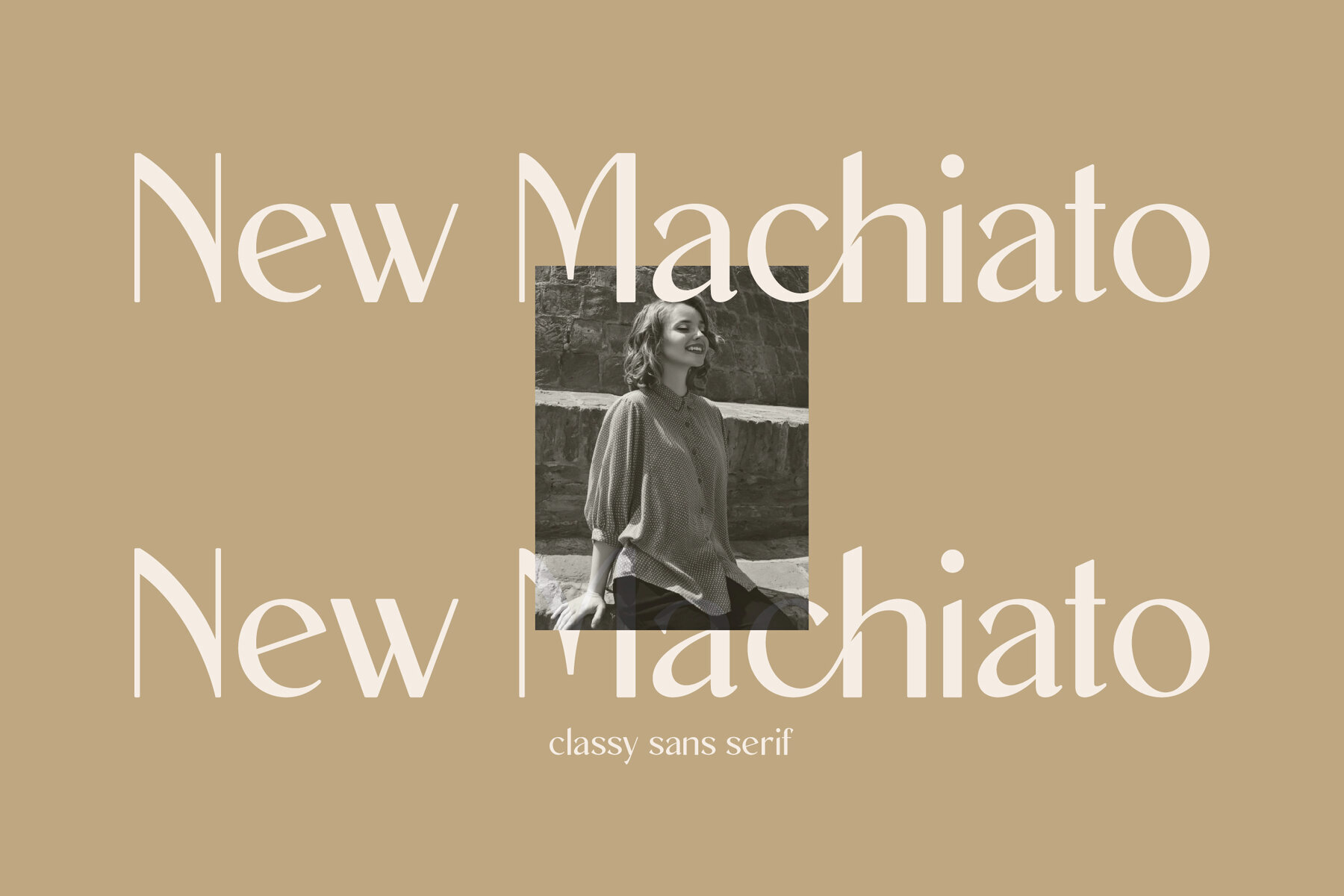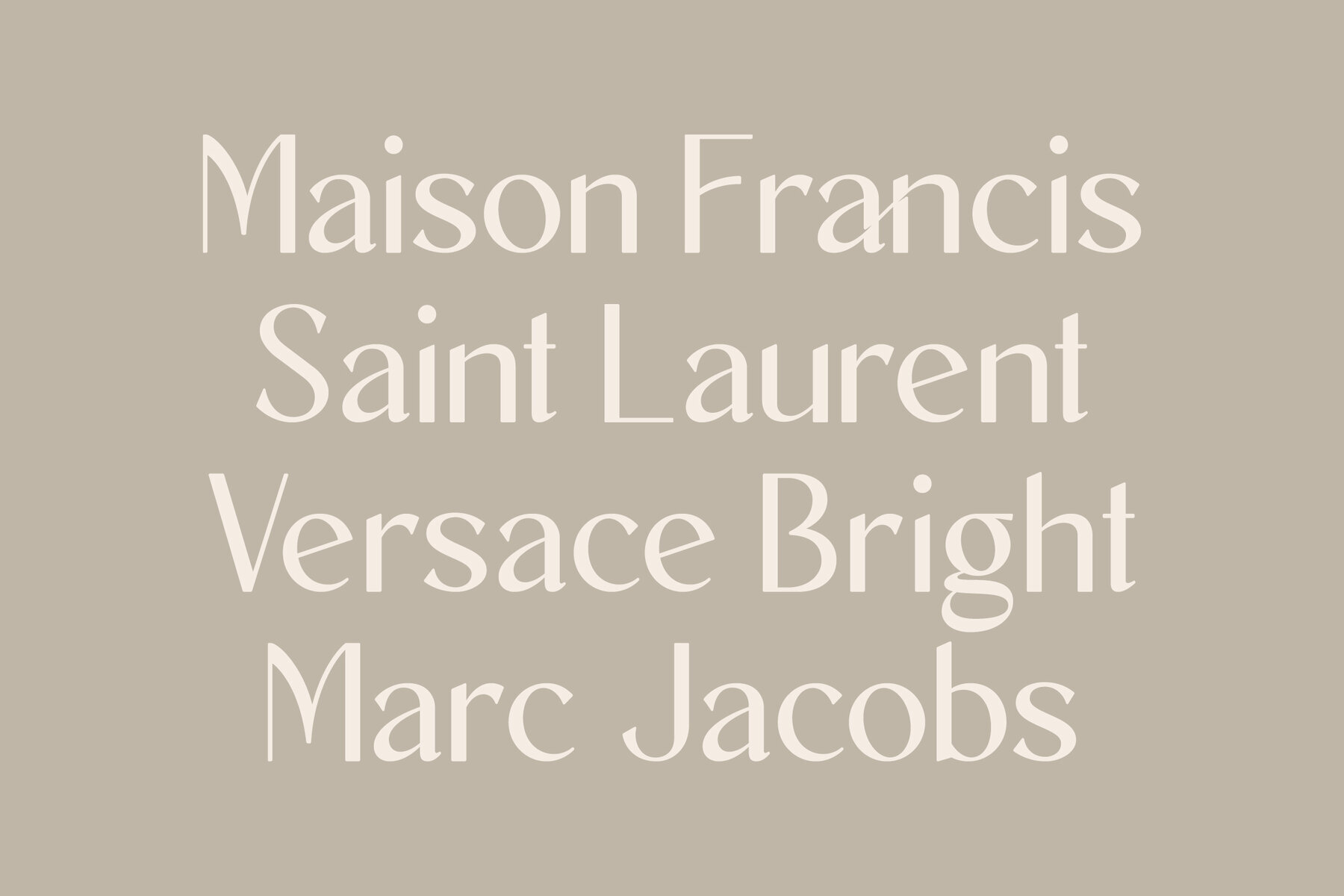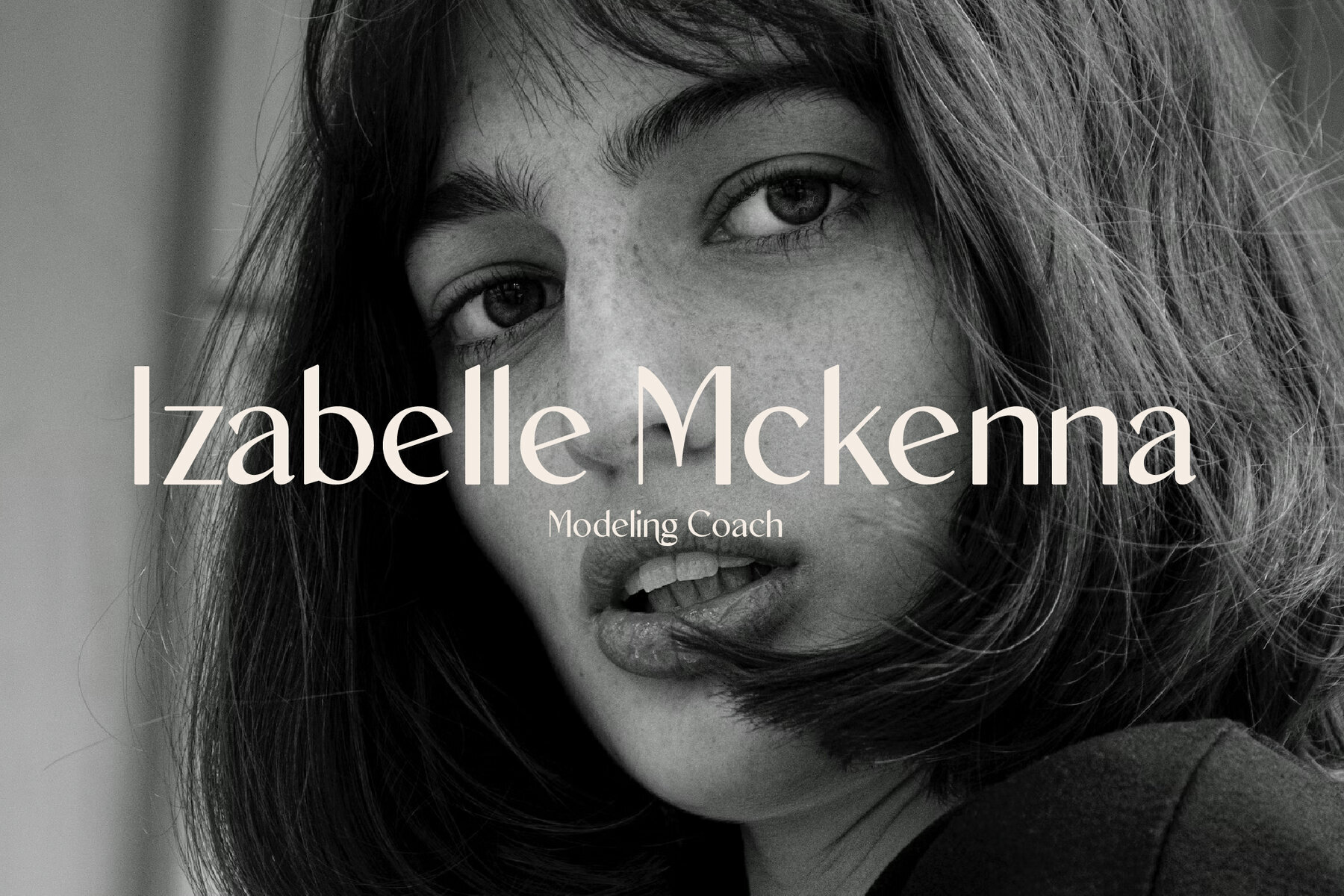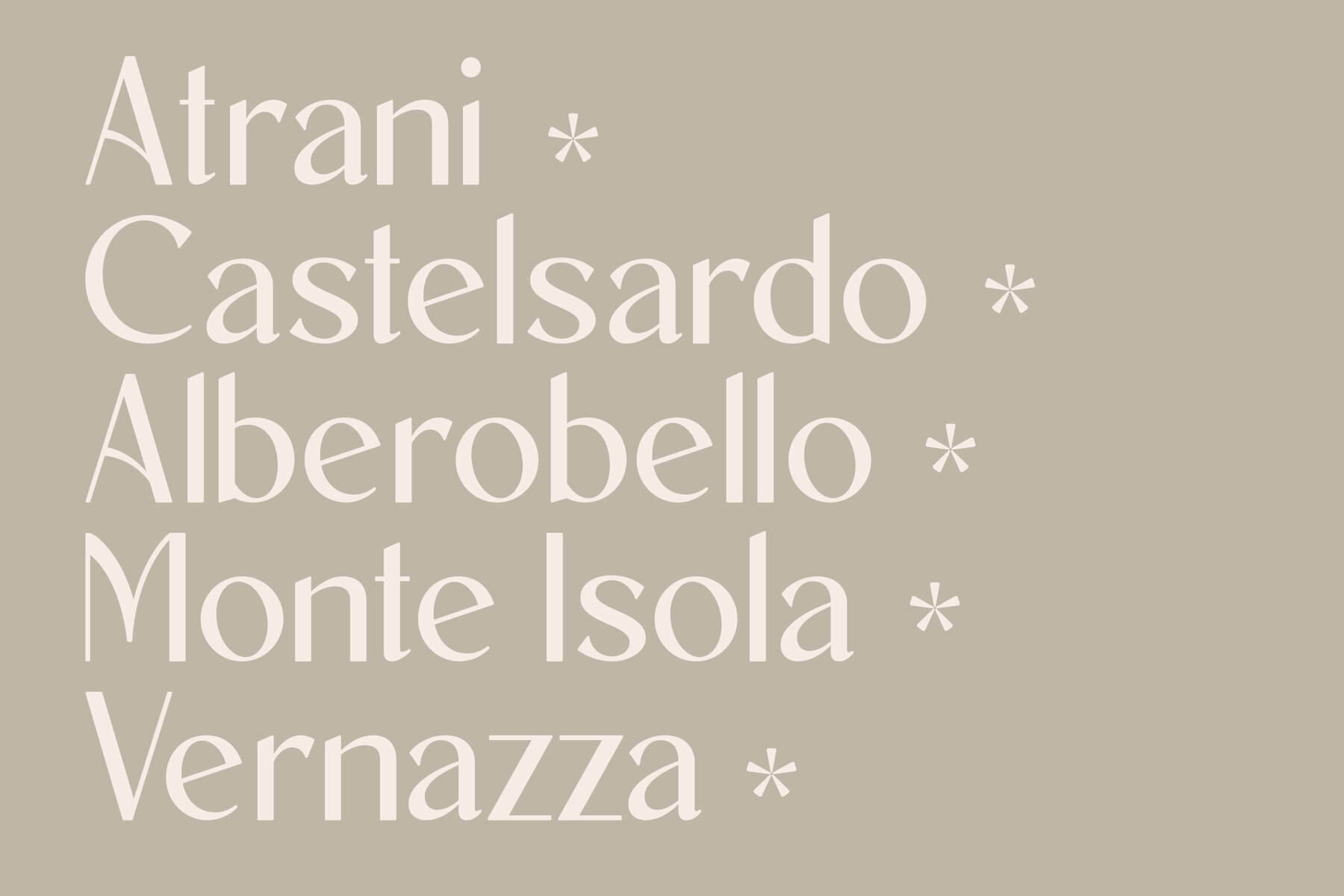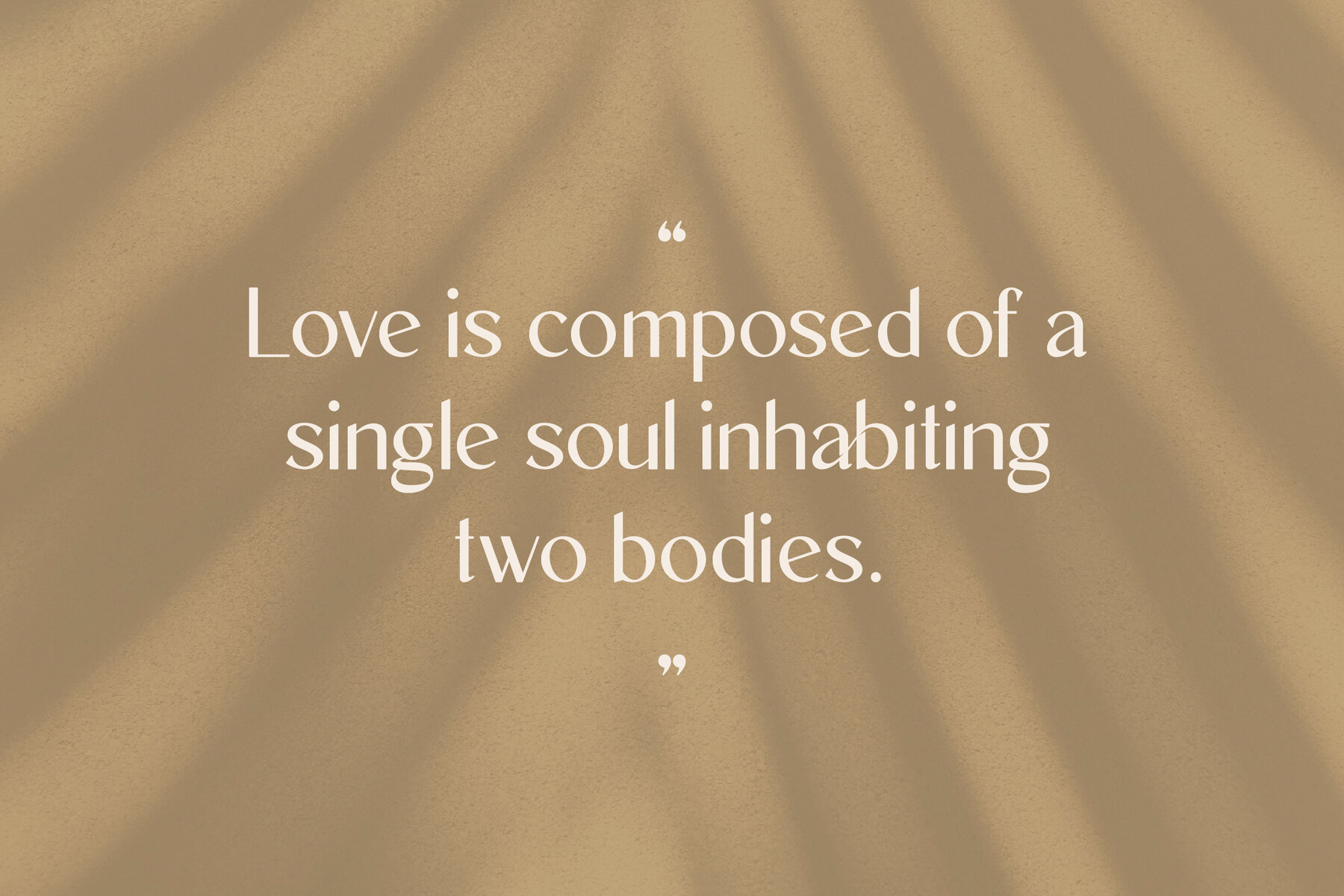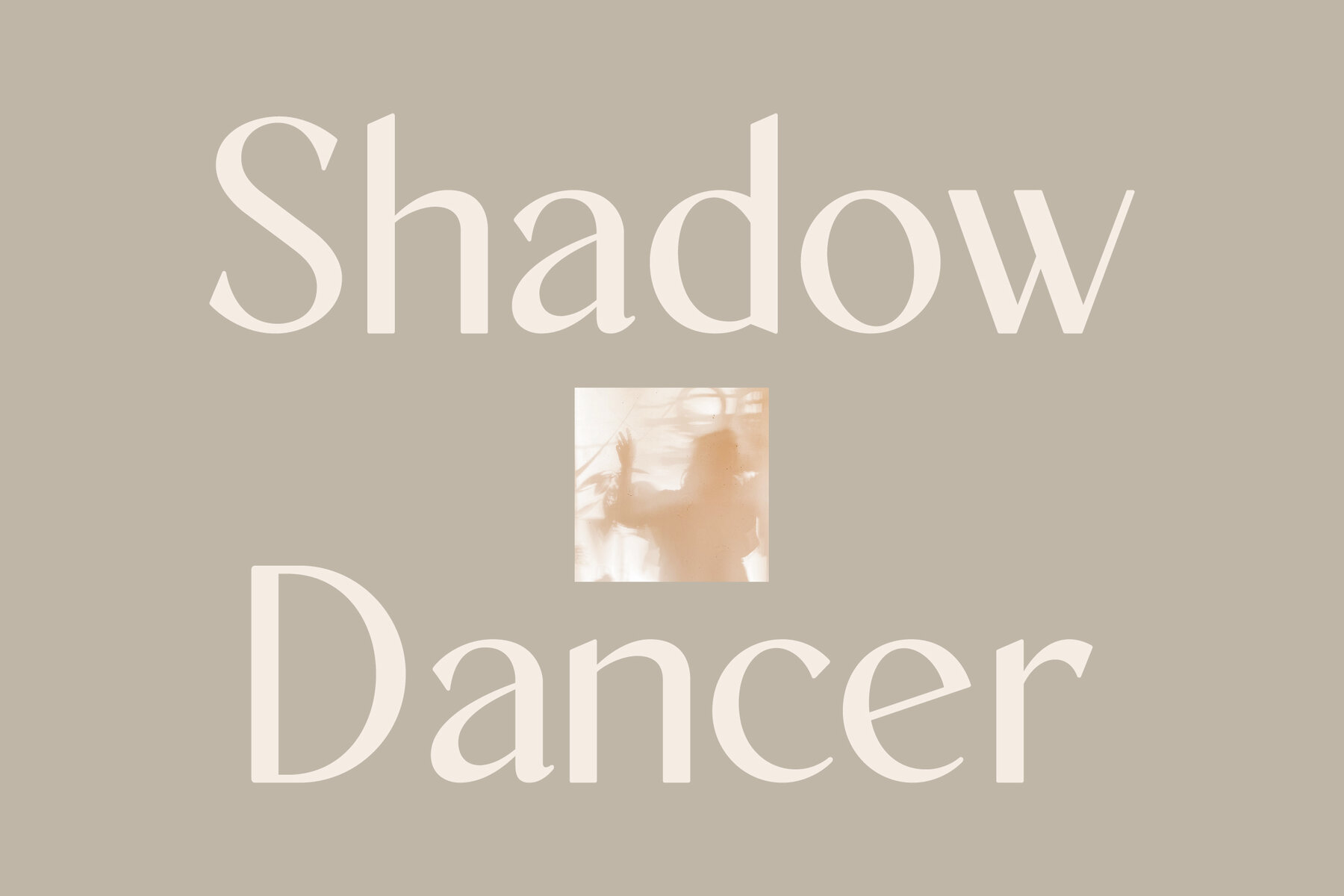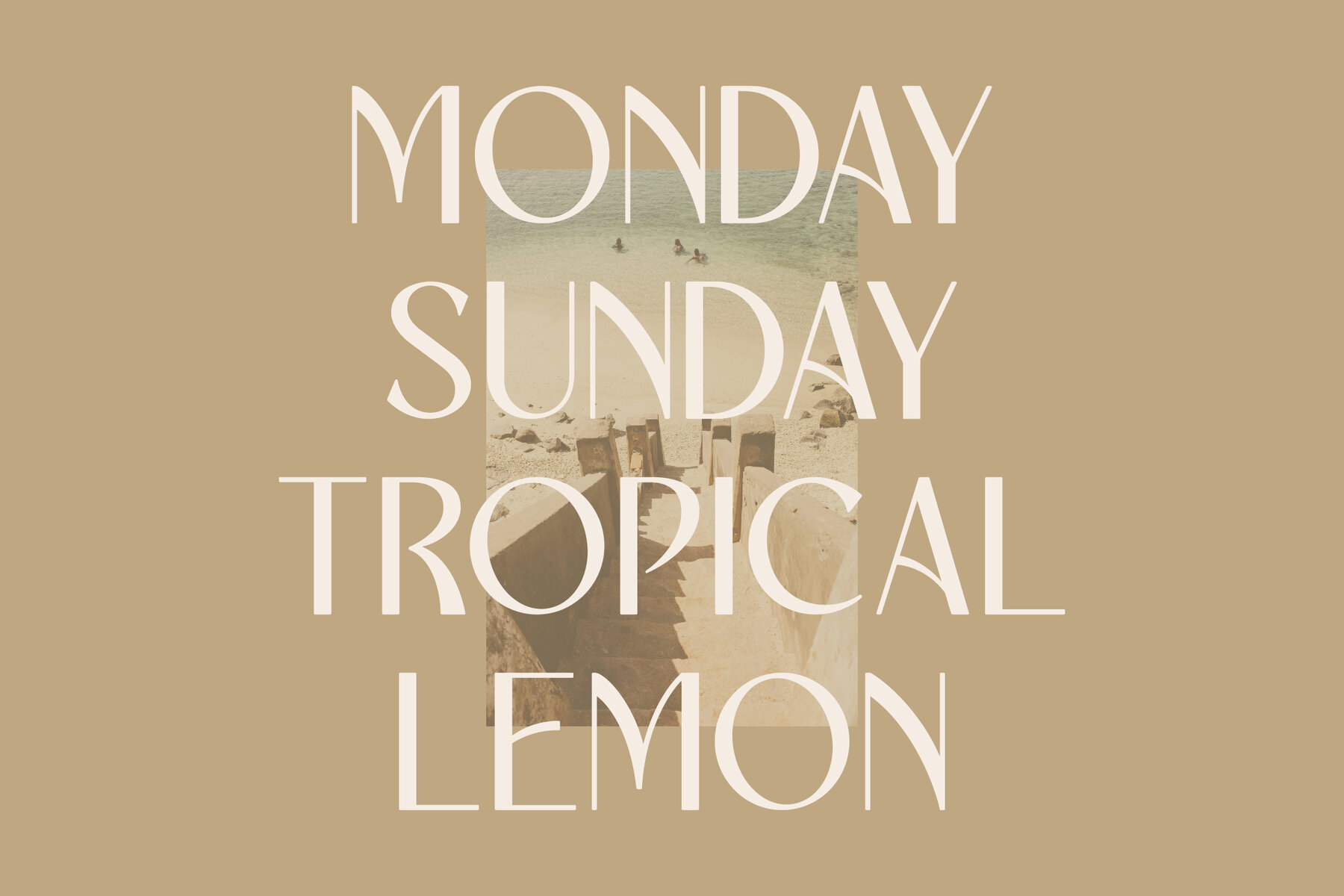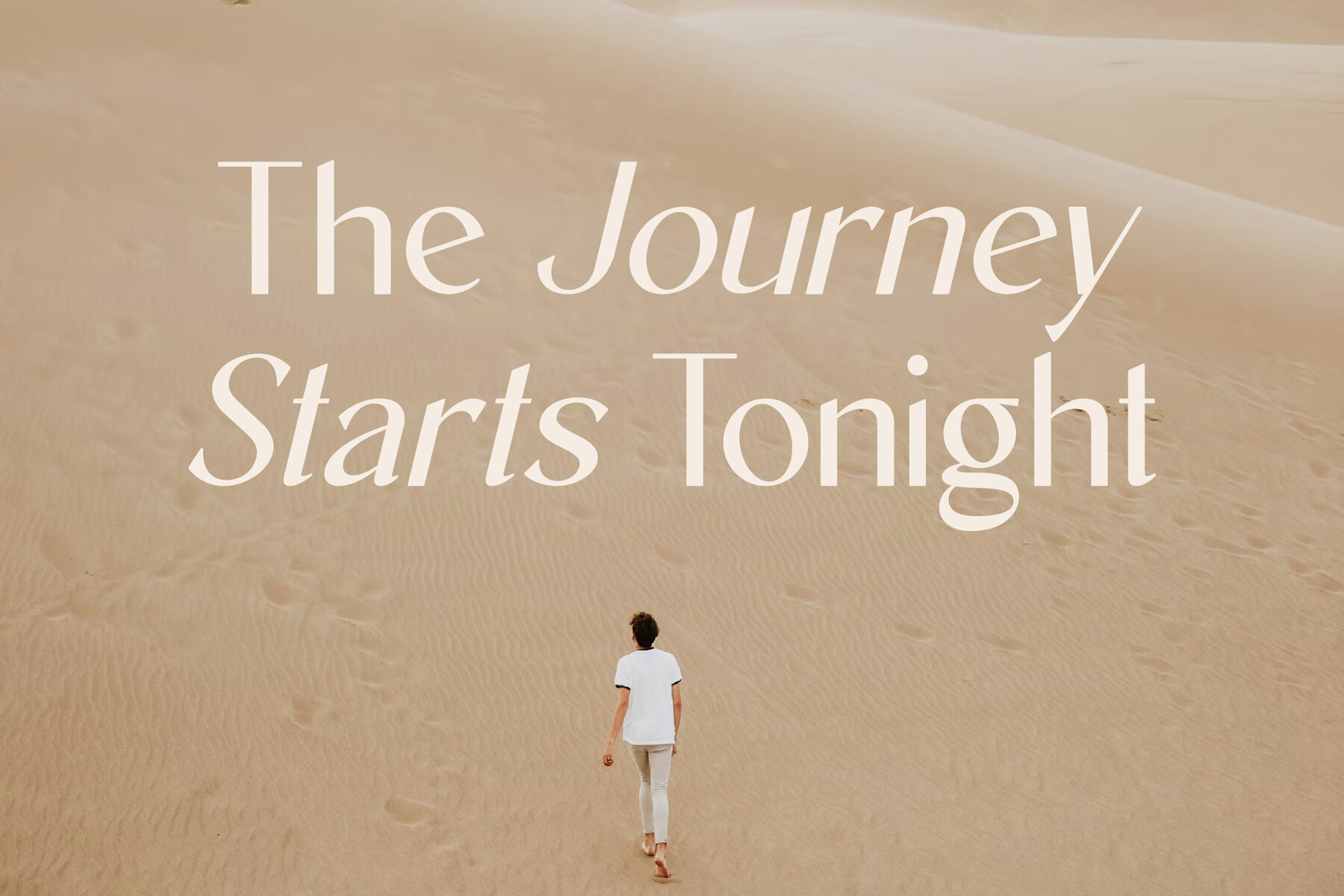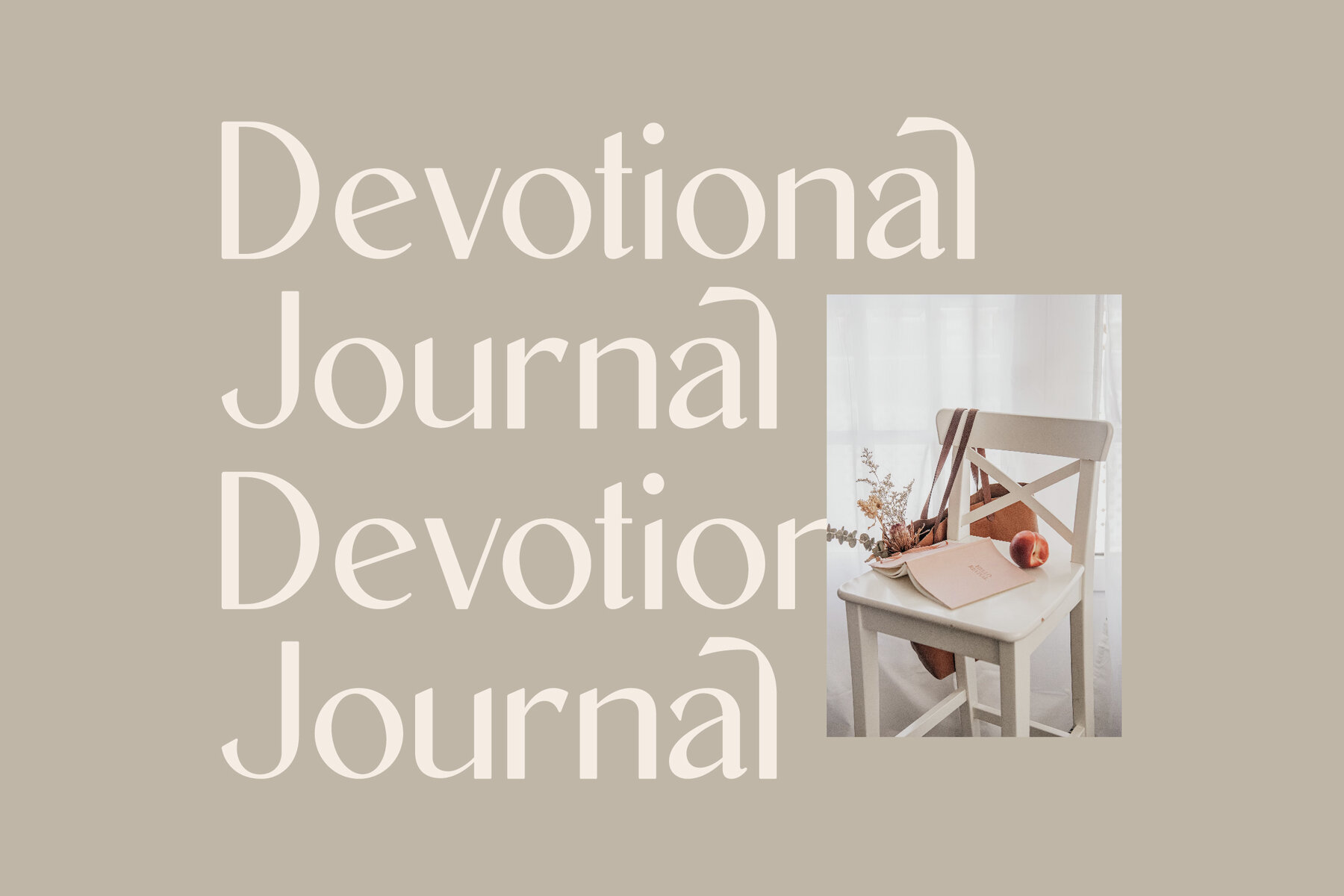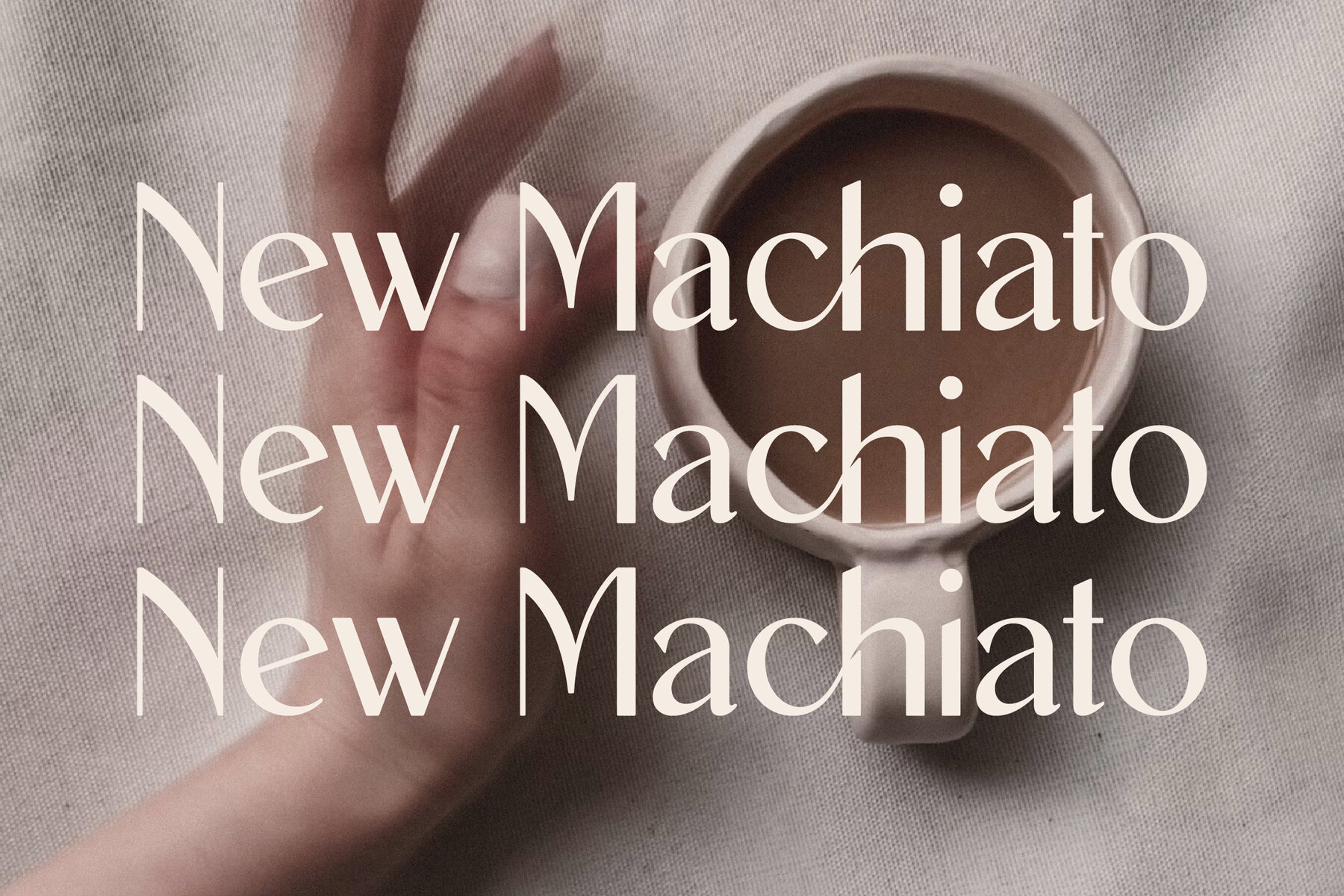
New Machiato Font
New Machiato Typeface offers the perfect blend of modernity and classic elegance. Crafted with its unique style, this serif typeface lends itself beautifully to a range of applications, whether you are designing a sophisticated logo, crafting a book or movie title, or seeking the right typographic touch for a fashion brand. It is equally suitable for magazines, clothing lines, and evocative quotations.New Machiato Typeface: A Serif with Modern Classic Appeal